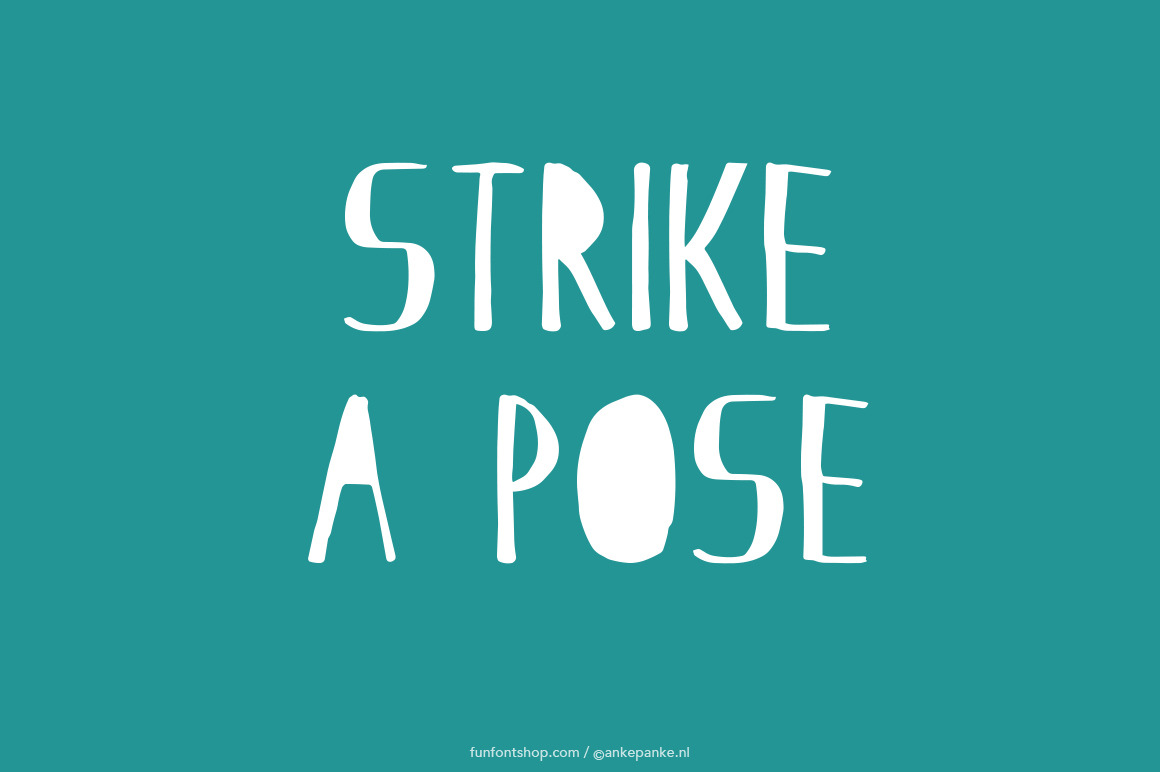
Strike a Pose handmade Font
A fun font with some of the capitals filled. This font was first draw by hand, scanned, vectorized and converted to a TTF file so you type with it. They have some imperfections, but I believe that adds to the handmade feeling.
- Letters Uppercase and numbers
- Punctuation !?#%&*±+=-_,.:;'"/|£€$@({[]})